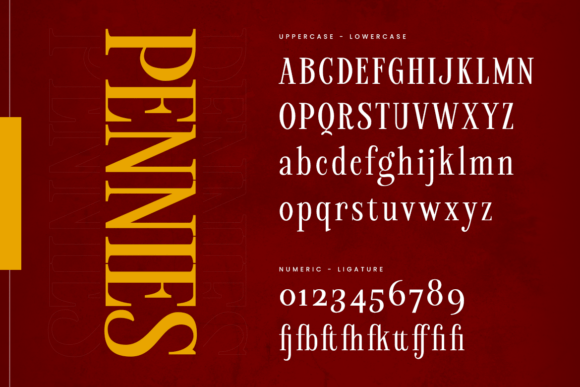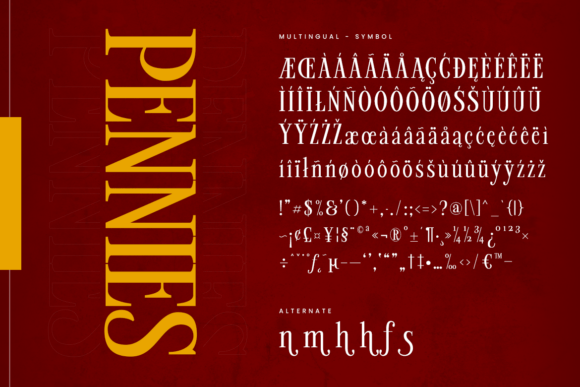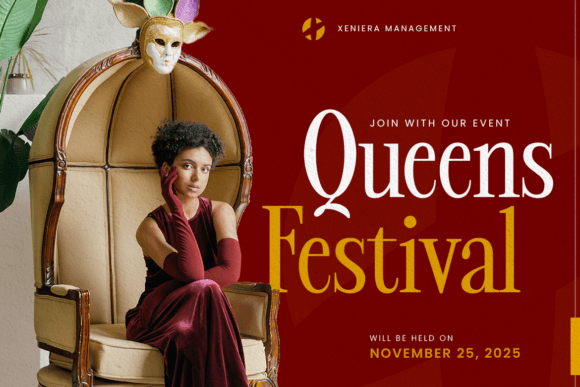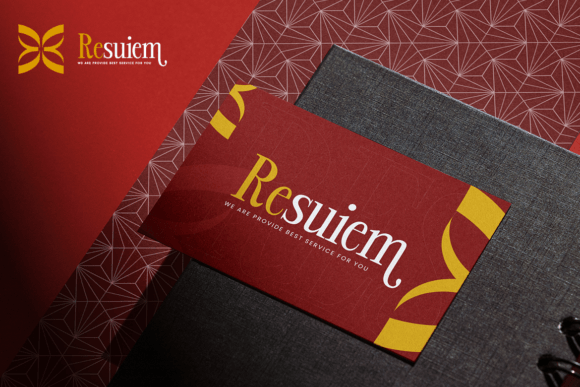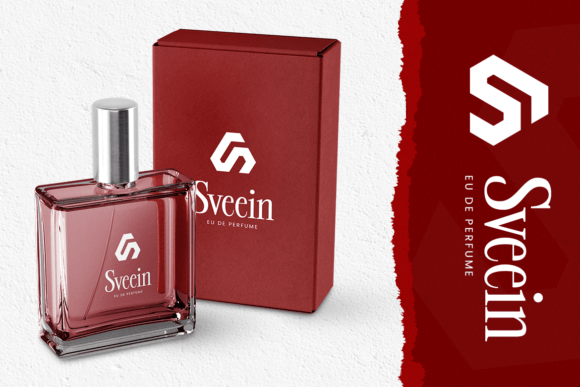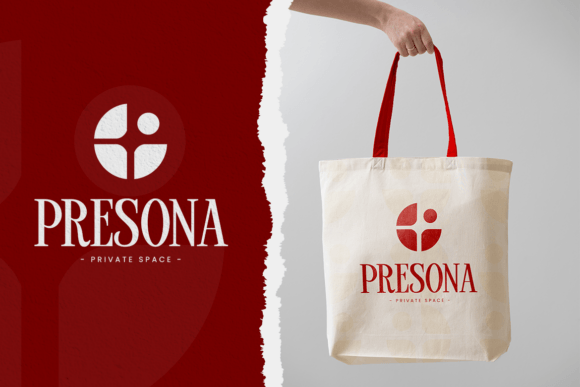
Introduction to Pennies Font
Have you ever stumbled upon a font that instantly captures your imagination and transports you to a world of endless creative possibilities? For designers and artists, that ‘aha’ moment is what makes the craft so thrilling. For me, that moment arrived when I discovered the enchanting Pennies Font, a high-quality serif typeface that embodies the perfect blend of whimsy and sophistication.
What sets Pennies Font apart is its unique ability to infuse any design project with a dash of individuality and charm. Whether you’re working on a creative branding initiative, a vibrant poster, or an enchanting children’s book, Pennies Font is an excellent design resource that will add a touch of magic to your work.
Key Features of Pennies Font
- Unique, hand-drawn design with a transparent background, ideal for overlaying on images or graphics.
- Includes a range of ligatures and swashes to add a touch of personality to your design.
- Perfect for creating eye-catching headlines, titles, and other typography elements in your design projects.
Honest Review: Pennies Font
I recently stumbled upon the Pennies Font, and I’m excited to share my thoughts on this design resource. One of the first things that caught my eye was the high quality of the font – it’s crisp, clean, and perfect for a creative project.
- ⚠️ Limited character set, which may not be suitable for longer texts
- ⚠️ Not ideal for use in complex designs or large-scale projects
Overall, I’m impressed with the Pennies Font, and I think it’s a great addition to any designer’s toolkit. While it may not be perfect for every project, it’s a high-quality resource that’s definitely worth checking out.
Tips for Getting the Most Out of Pennies Font
For a high-quality design, use the Pennies Font on a transparent background to create a clean and modern look.
Experiment with different font sizes and styles to add depth and visual interest to your design.
Combine the Pennies Font with other design elements, such as graphics and images, to create a unique and creative project.
The Pennies Font is a versatile design resource that can be used in a variety of creative projects, including:
Business cards and marketing materials
Blog posts and social media graphics